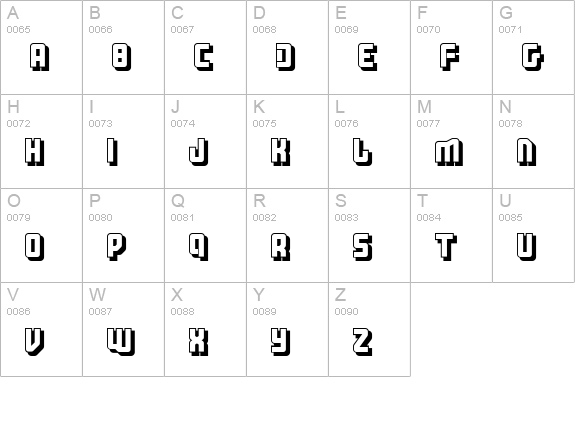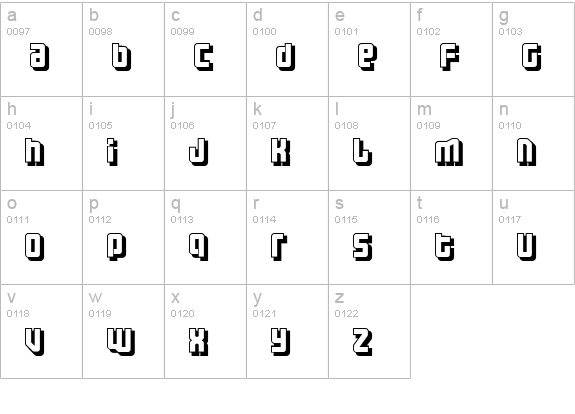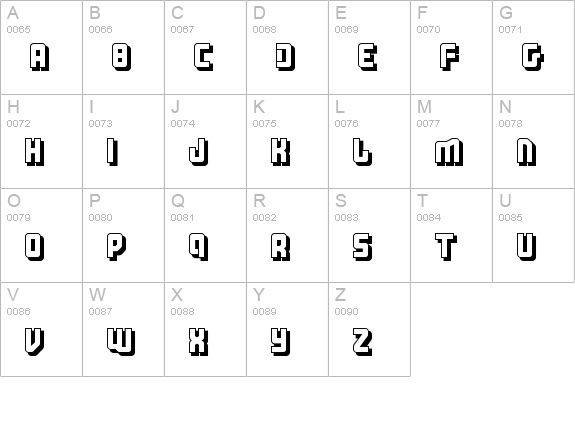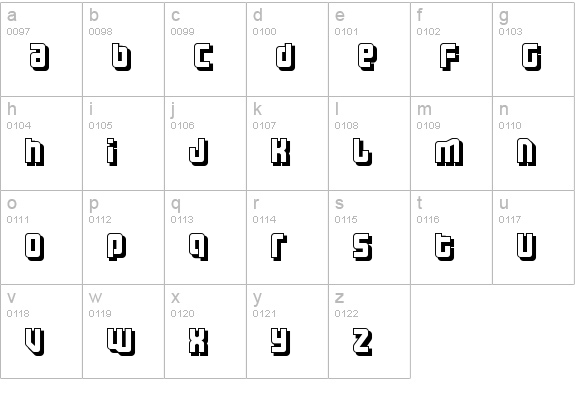
Introducing Three the Hard Way, a captivating and edgy shadowed font that will add a touch of mystique and intrigue to your designs. This unique typeface combines bold, sharp lines with subtle shadows, creating a visually striking effect that commands attention. Three the Hard Way is a versatile font that can be used for a wide range of creative projects. Whether you're designing a logo, creating eye-catching headlines, or crafting a poster that demands to be noticed, this font will deliver the impact you're looking for. What sets Three the Hard Way apart is its perfect balance of strength and elegance. The powerful, angular letterforms are softened by the delicate shadows, giving the font a sense of depth and dimension. It exudes confidence and sophistication, making it ideal for projects that require a touch of sophistication and style. The best part? Three the Hard Way is freely available to download at FontsMarket.com. You can unleash your creativity without any limitations or restrictions. This means you can use this stunning font in both personal and commercial projects, without having to worry about any additional costs. Don't miss out on the opportunity to elevate your designs with Three the Hard Way. Download it for free today at FontsMarket.com and unlock a world of possibilities. With this captivating shadowed font in your toolkit, you'll be able to create stunning visuals that leave a lasting impression.